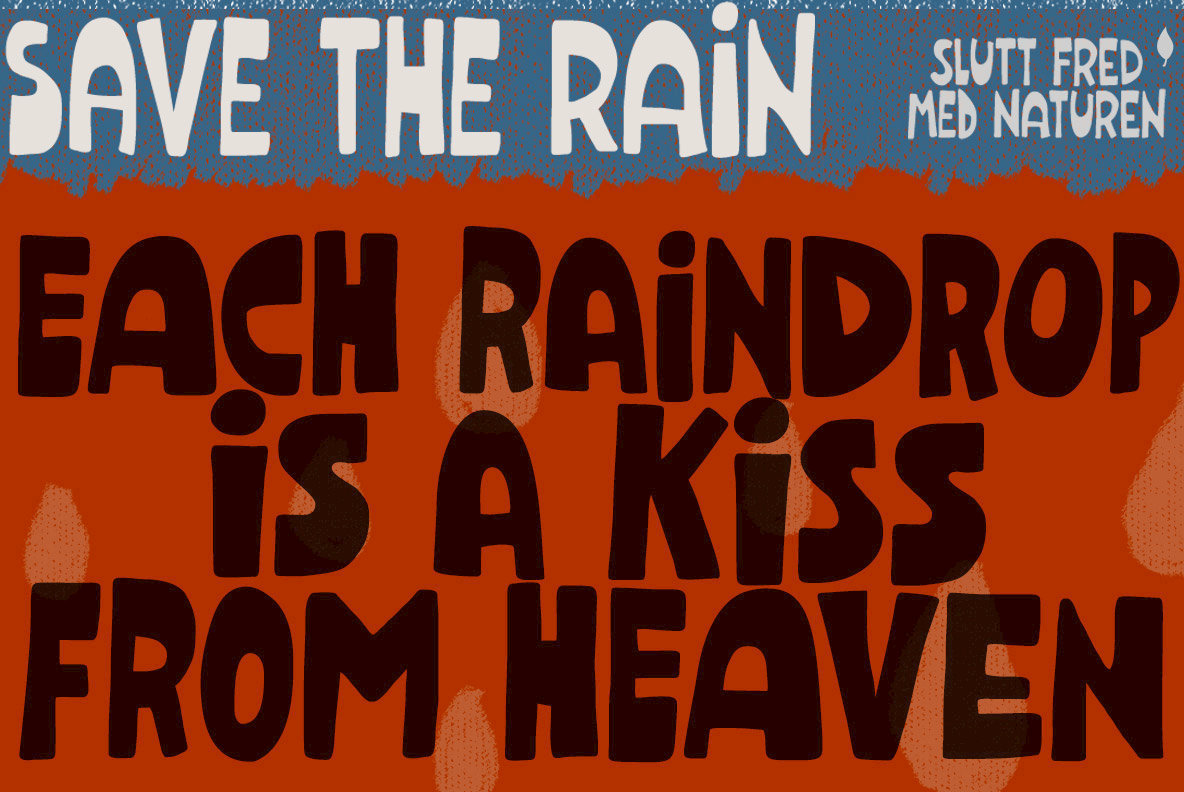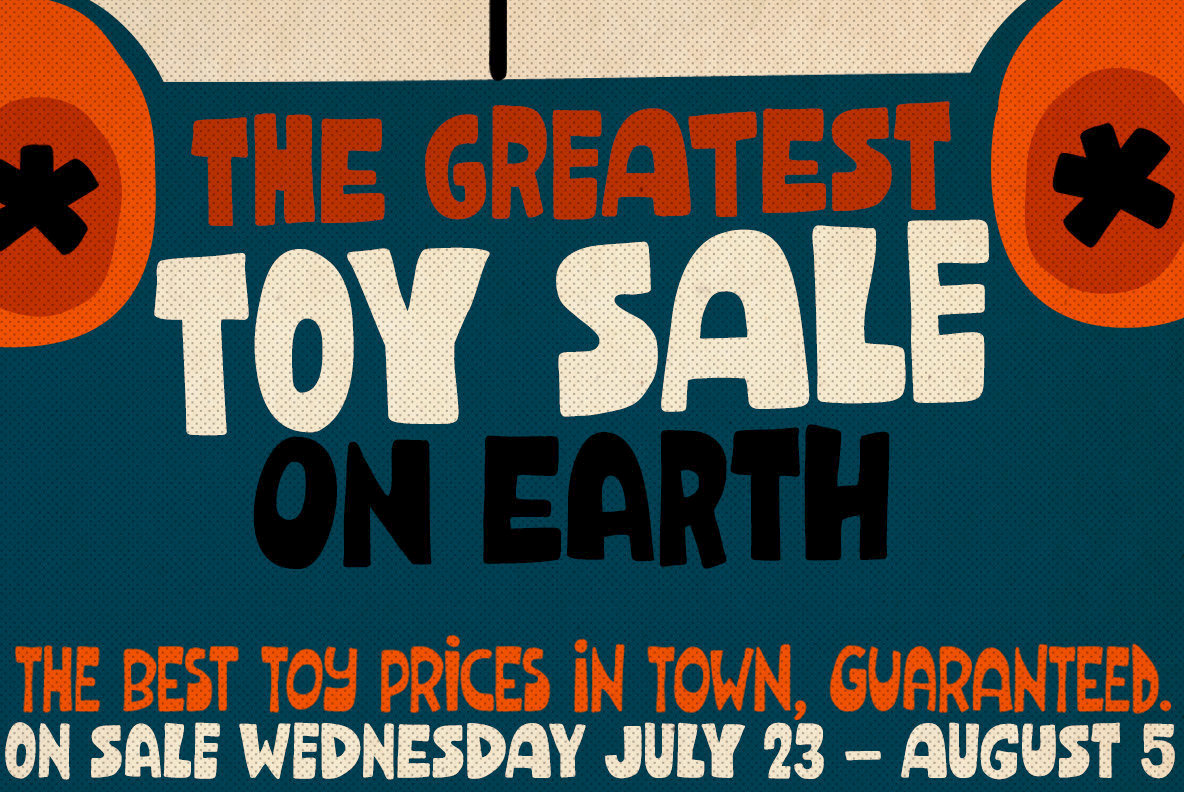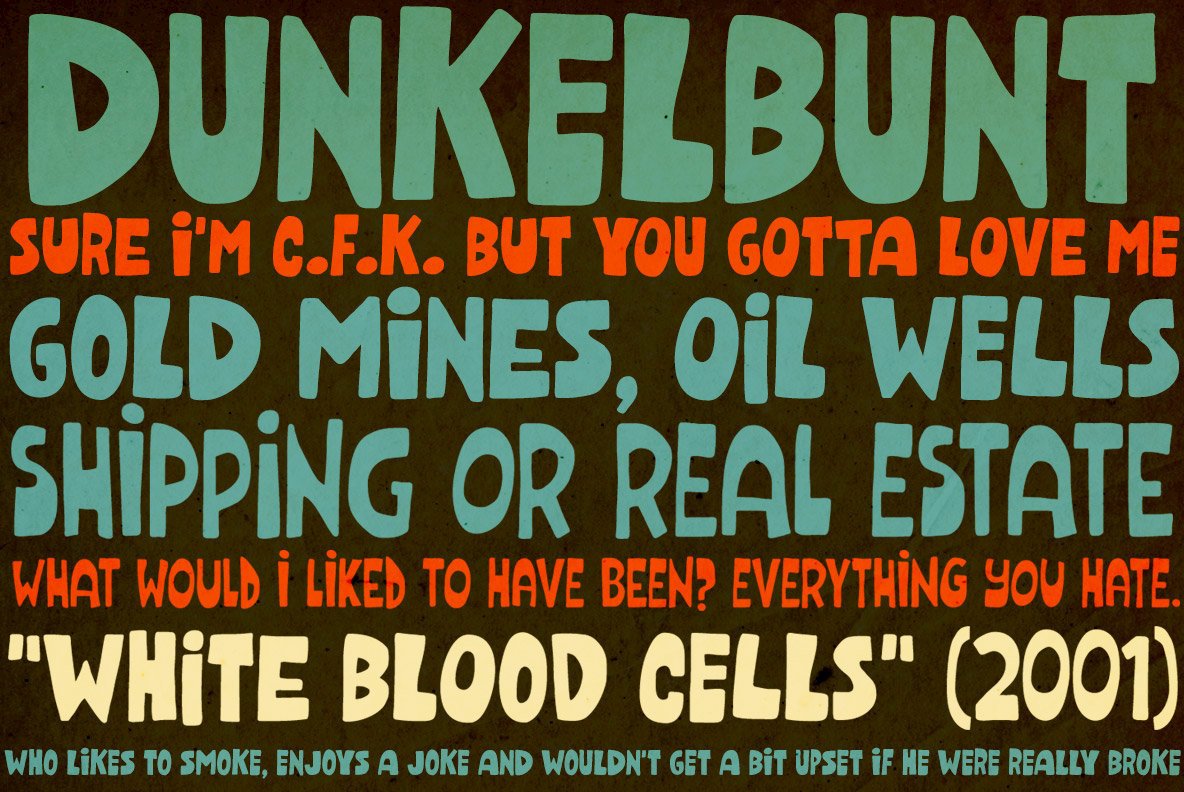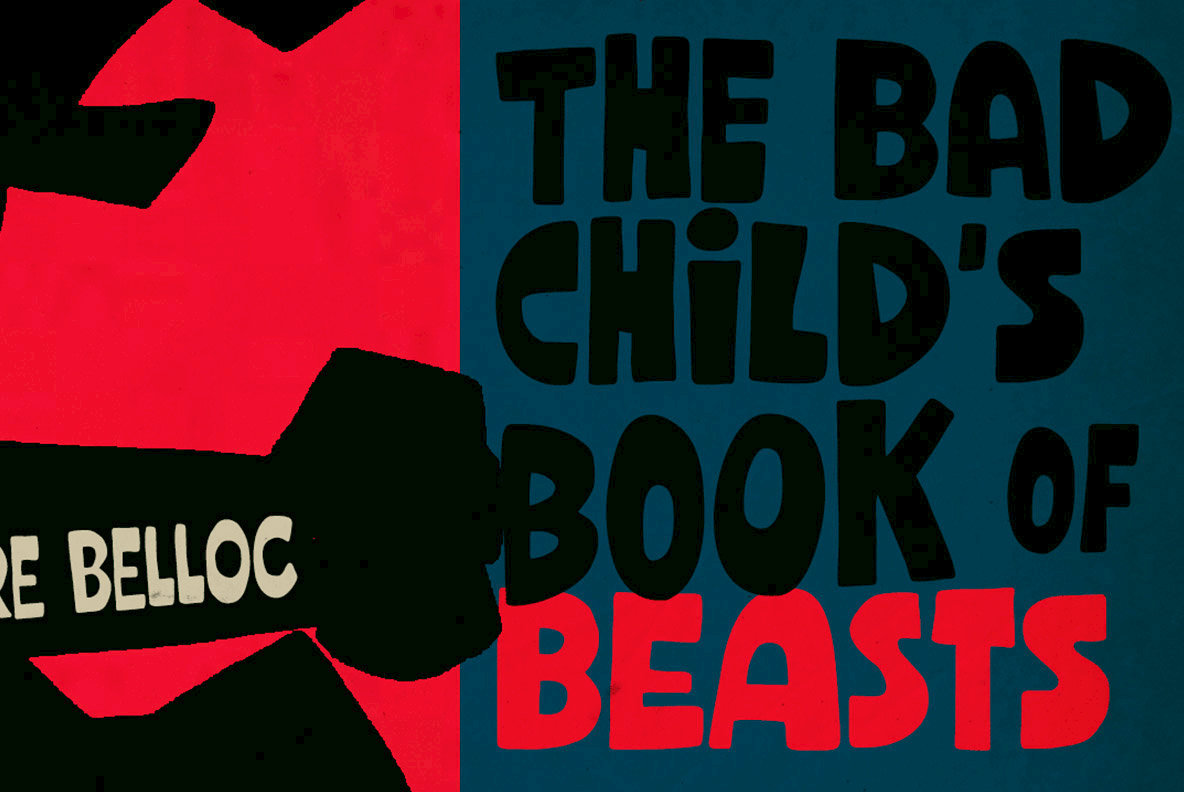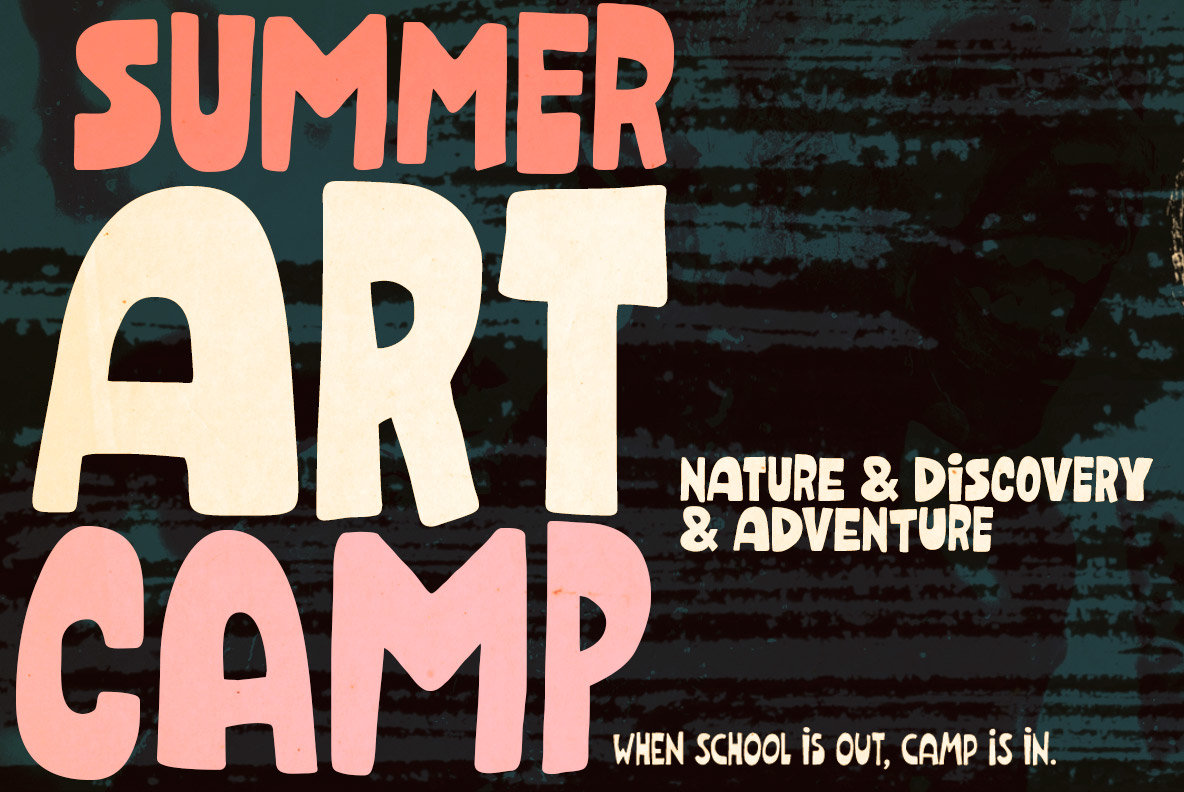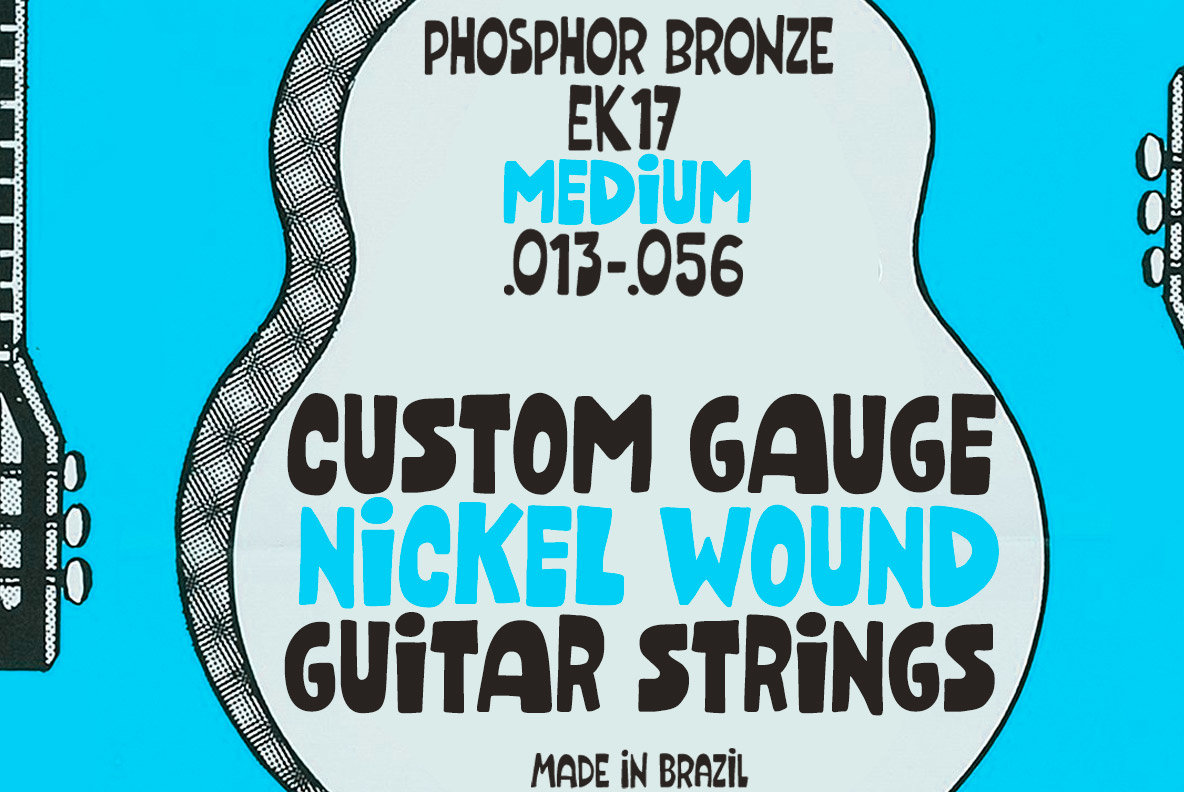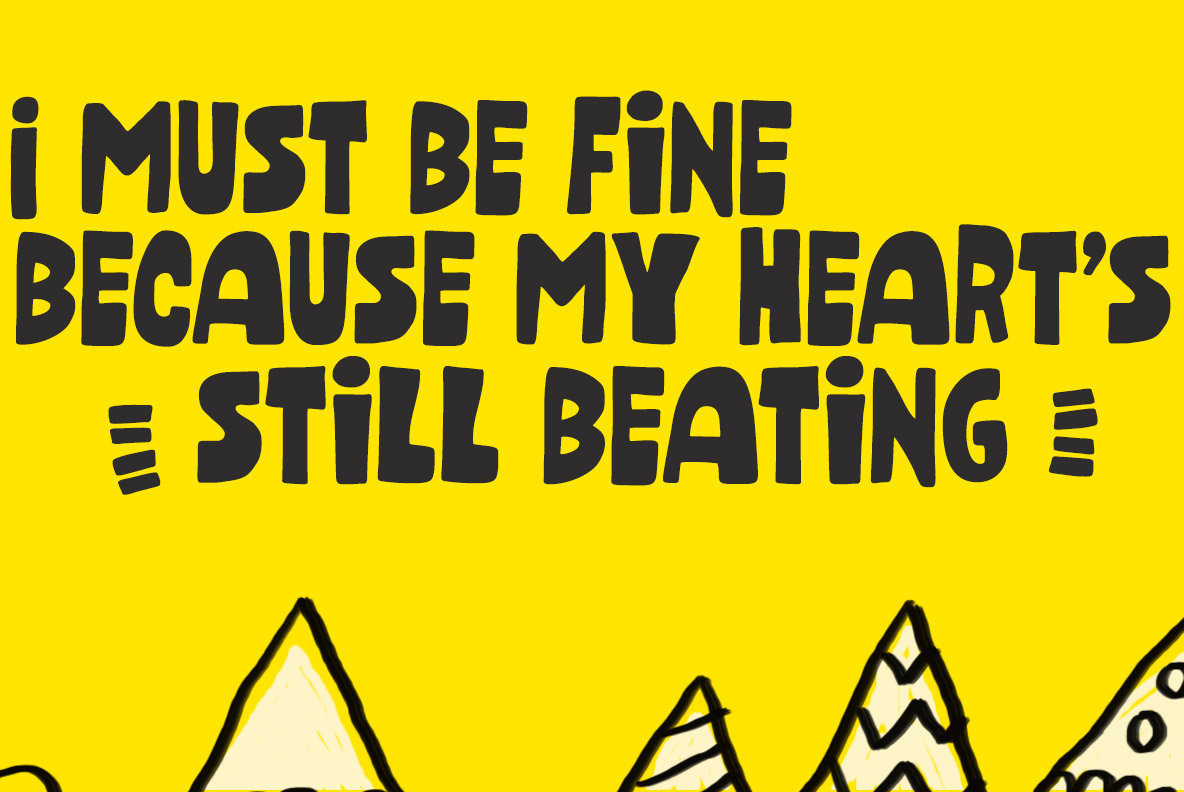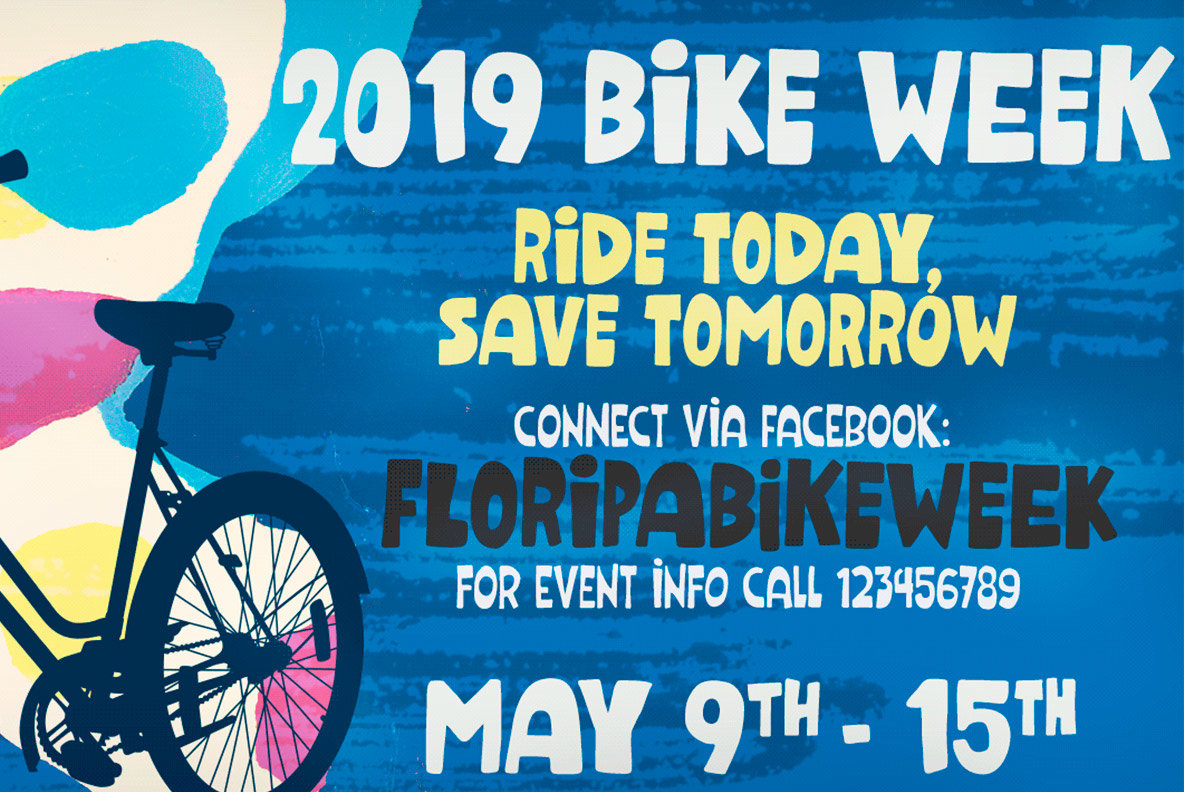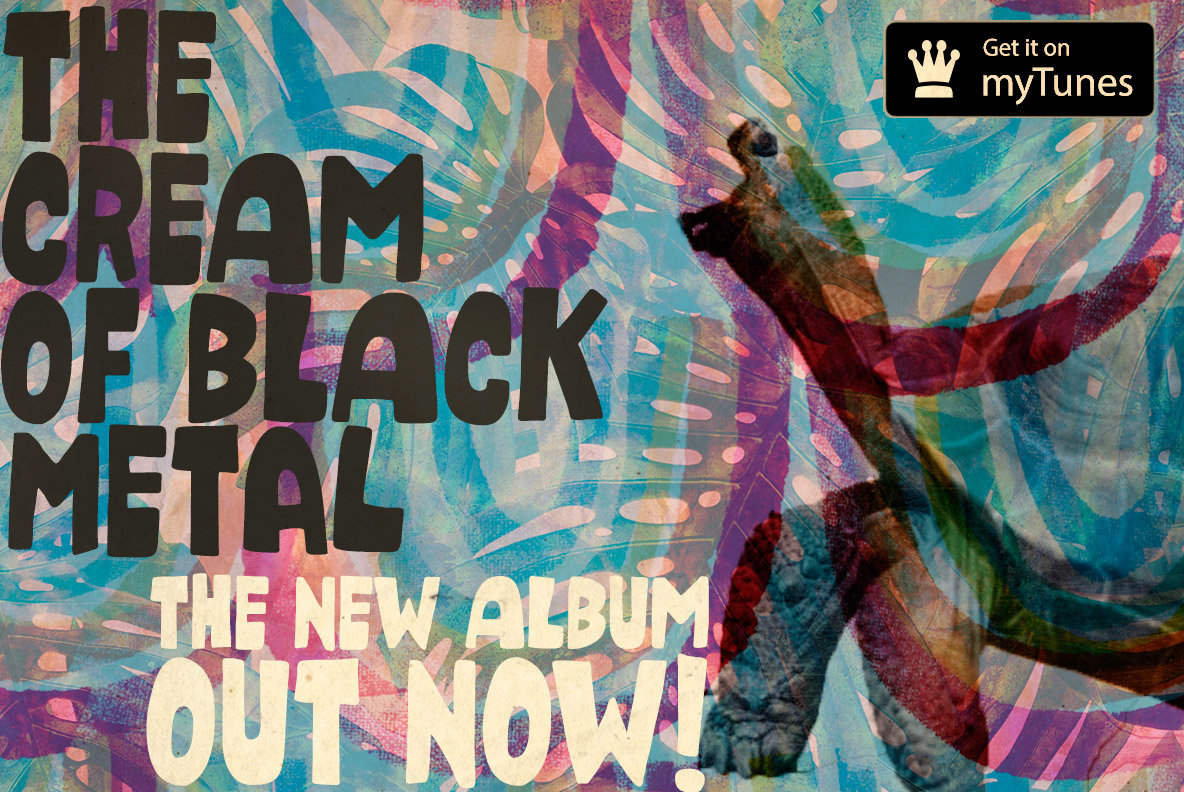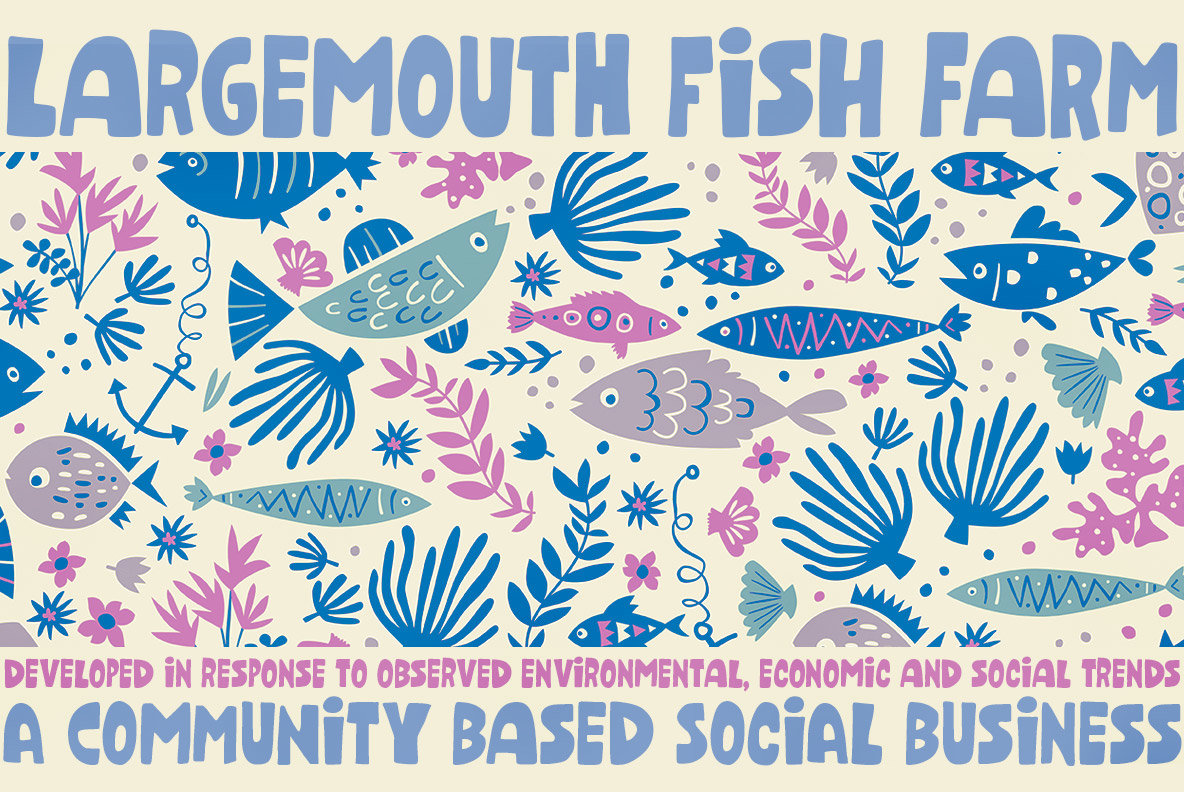
Dunkelbunt Font
Dunkelbunt is freely inspired by works and words of the wildly eccentric artist, architect and designer Friedensreich Hundertwasser.
It’s an all caps font, with 2 cuts for each letter, loaded with imaginative energy and organic forms that will certainly make your designs shine. Enjoy!